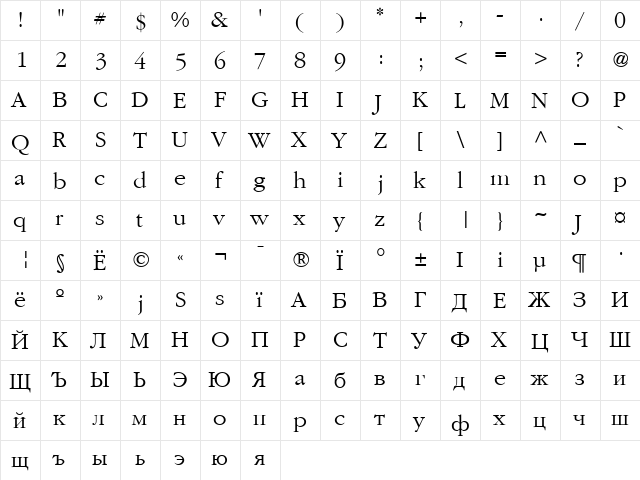
AGGaramondCyr Light
Design Context for AGGaramondCyr Typeface
AGGaramondCyr is a composed and adaptable typeface that performs quietly and consistently across a wide range of design contexts. The delicate stroke weight brings airiness and refinement to layouts.